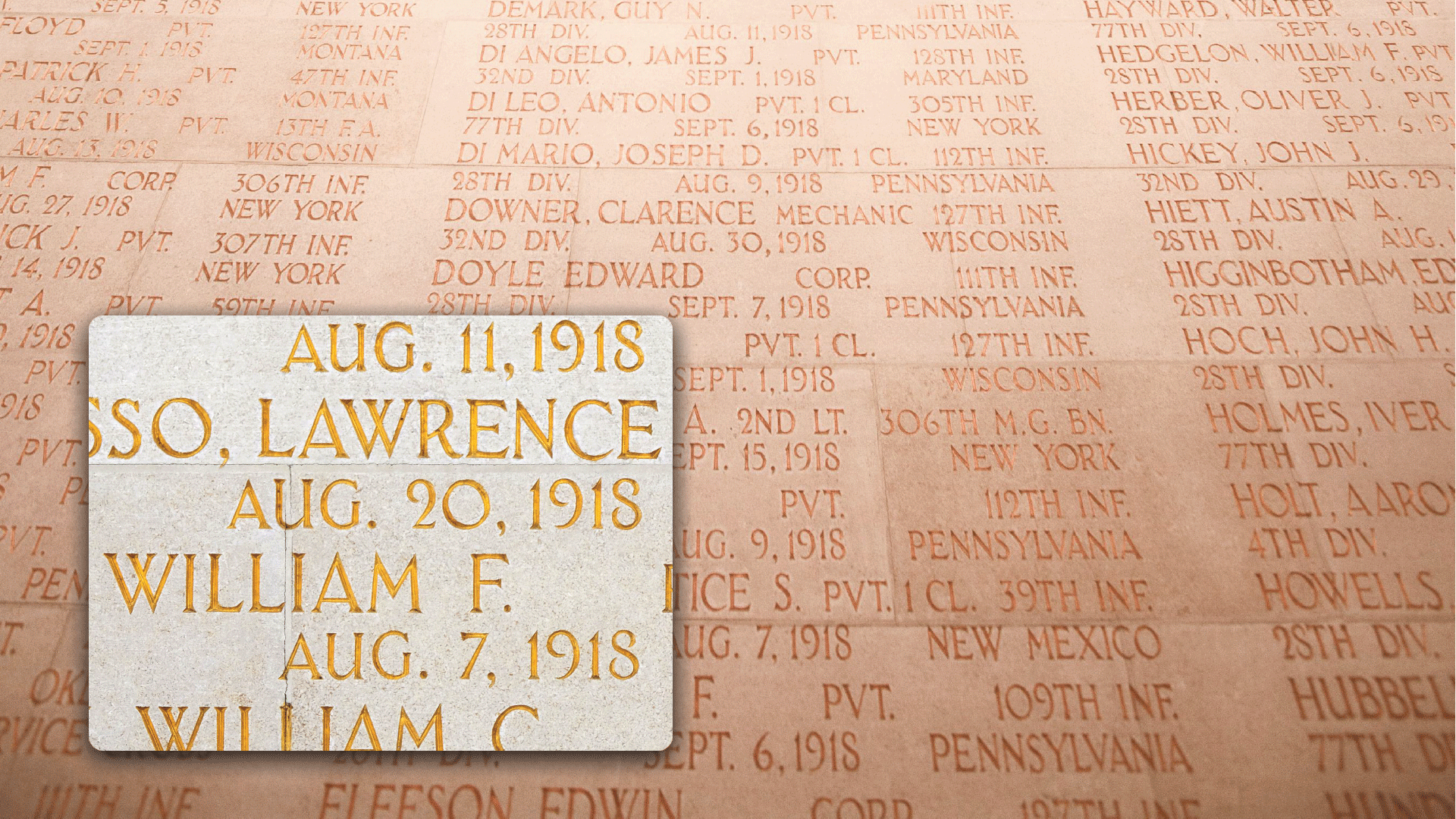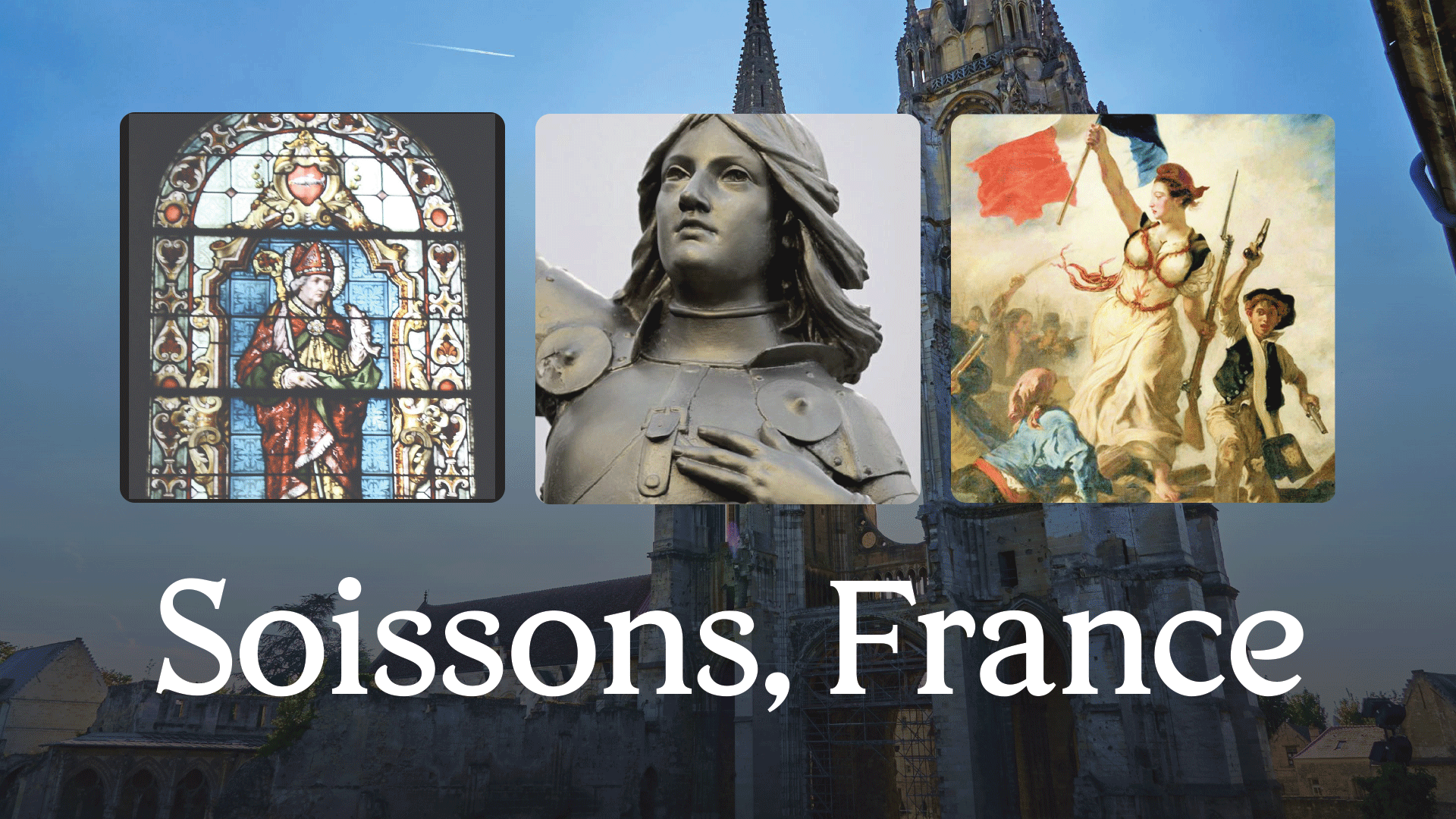
Soissons
The Soissons family consists of Soissons Regular – with a Soissons Italic, Soissons Headline, and a Soissons Black to come at a later date.
As part of our “French experience” here at TypeParis 2023, my wife and I visited the grave of my great-uncle Steven Jendraszak at the Oise-Aisne American Cemetery, in the French countryside near Soissons. We were the first family members ever to visit him, 105 years after his death.
He was never spoken of growing up, even my Aunt heard nothing about him. Regardless, a clue had been left for me, a photo of a young man with gentle, kind face – hard to see him in combat. So, it was like solving a “cold case” – and I've come to feel like I've gotten to know him these last four years, through all the research surrounding him. I was informed of his grave from a military researcher right before Covid, and have been waiting since then to make this “pilgrimage.”
Killed in action by a biplane bomber on the second day of the The Battle of Soissons (July 18-22, 1918) on July 21,1918, Steven Jendraszak served in the United States Army's 3rd Machine Gun Battalion for the liberation of France and Europe. Fought on the Western Front during World War I, this battle marked the key turning point of the war, as the German army would be on the defensive for the remainder of the conflict. The war ended 5 months later.
Established in August 1918, the Oise-Aisne American Cemetery contains the graves of 6,012 American soldiers who lost their lives in World War I. The land is leased by the French government to the United States American Battle Monuments Commission in perpetuity.
Visiting the Oise-Aisne American Cemetery was a profoundly meaningful experience for me; I felt I had completed a task long left undone. His grave placement is prominent, at the beginning of row, and close to the monument.
Beyond the grounds themselves and the graves of the fallen, there is a large monument at the end of the cemetery with a chapel on one side and a map room on the other. On the wall of the map room was displayed the ground offensive with dates; the stonework and typography was instantly inspirational to me and spoke to me.
I felt I could both do this style justice but also allow me to spend more time with my great-uncle who I’ve been getting to know these last few years.
In terms of its purpose, it was in the context of developing a historical typeface for the United States American Battle Monuments Commission as the client. It might be used for displays at the memorials, the digital presence on web and otherwise, and possibly an interactive experience re-creation of the grounds for those who are unable to visit in person.
I got to know the retired Marine Sergeant Major Hubert Caloud, who is now the Superintendent of the cemetery. Warm and enthusiastic for the cemetery, he served as a great resource for me. He allowed me to return to the site and granted me access to the walls so I could do stone rubbings of them.
In executing the type face – and marrying the two traditions of uppercase and lowercase – I necessarily needed to make compromises on both ends. I took a lot of inspiration from the incomplete bowls of the "6" and the "8" numerals of the source, and I applied that feature to the bowls of the "R," "B," and "P" in the upper case.
I found that I actually couldn't directly replicate many of the characters exactly for any of them to be made part of a formal typeface family, so there were “casualties” here: one of them being the lowercase "e" in the map room from that had a distinctive look. But in the end, it needed to conform to the greater family, so I did allow for the bowl to be incomplete – like with the "6" and the "8" – giving at that unifying touch.